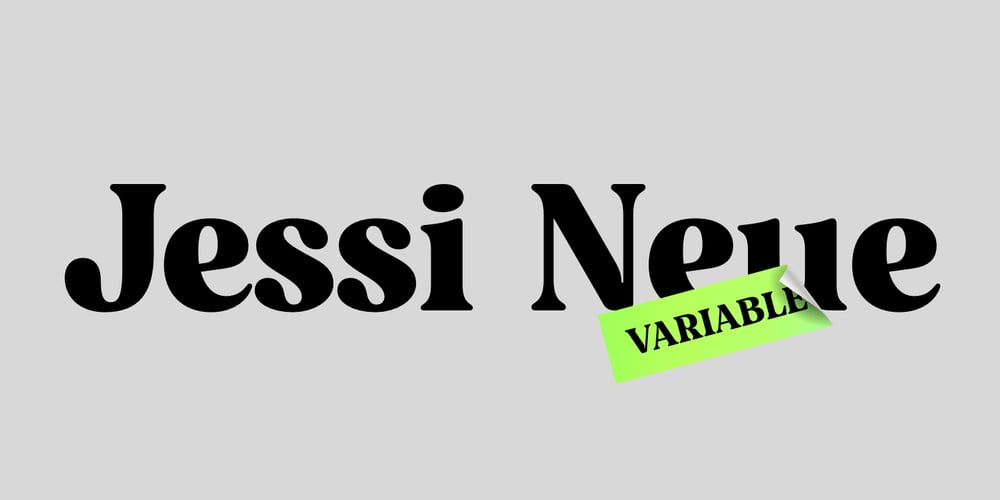
Jessi Neue Font Family was designed by Guillermo and published by Nois. Jessi Neue contains 5 styles and family package options. Jessie Neue in a new Serif typeface inspired by popular ’70s fonts mixed with grotesque touches. It has ligatures that make it more elegant and grotesque elements that give it a modern look and make it more versatile. Jessi Neue has a great performance in large body texts and also in high impact headlines. The family has four weights and also a variable version to give more creative freedom.It has 667 characters that covers the following languages: Basic Latin, Western European, Central European, South Eastern European, Vietnamese, Pinyin and Basic Greek.The italic version will arrive soon.